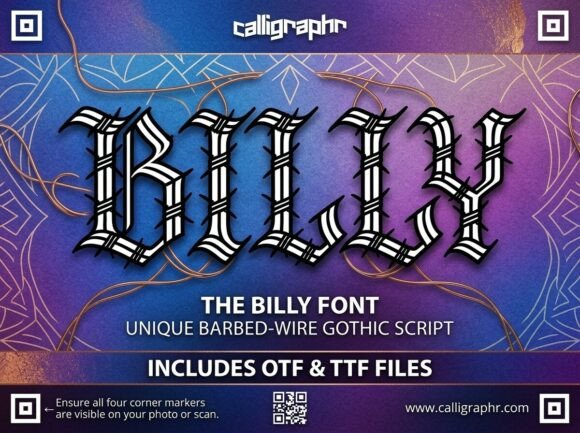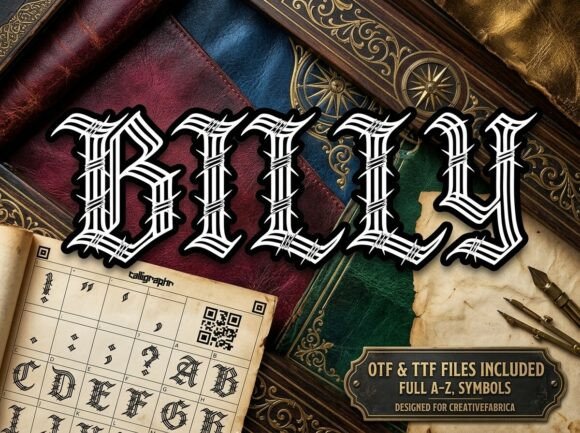
Unleash the Rebellion: Introducing Billy Font, the Ultimate Display Typeface
In the world of typography, few fonts can evoke the same level of intensity and energy as Billy, a premium display font that seamlessly fuses traditional blackletter structure with industrial aggression. This unique typeface is designed to make a statement, perfect for designers and crafters looking to add an edgy touch to their projects. In this article, we’ll dive into the world of Billy Font, exploring its features, applications, and the inspiration behind its creation.
The Birth of Billy Font
Billy Font is the brainchild of a team of designers who sought to create a typeface that embodies the spirit of rebellion and nonconformity. By combining the traditional blackletter structure with industrial elements, they crafted a font that exudes a sense of raw energy and aggression. The result is a premium display font that is both visually striking and unapologetically bold.
Key Features of Billy Font
So, what sets Billy Font apart from other typefaces? Here are some of its key features:
- Rhythmic, triple-lined letterforms: Each character in Billy Font features a unique, rhythmic design with triple-lined letterforms that create a sense of movement and flow.
- “Vicious-wire” soul: The font’s letterforms are bound by a “vicious-wire” soul, giving it a sharp, industrial edge.
- Sharp, dangerous barbs: Every character is accented by sharp, dangerous barbs that add to the font’s aggressive aesthetic.
- High-impact weight: Billy Font comes in a high-impact weight, making it perfect for bold, eye-catching designs.
Applications of Billy Font
Billy Font is a versatile typeface that can be used in a variety of applications, including:
- Independent streetwear branding: The font’s edgy, rebellious vibe makes it perfect for streetwear brands looking to make a statement.
- Heavy metal album covers: Billy Font’s aggressive aesthetic is well-suited for heavy metal album covers, adding a touch of intensity and energy to the design.
- Custom motorcycle graphics: The font’s industrial edge makes it a great fit for custom motorcycle graphics, adding a touch of rebellion to any design.
- Underground-edge social media headers: Billy Font is perfect for social media headers that require a bold, attention-grabbing design.
Why Choose Billy Font?
With so many fonts available, why choose Billy Font? Here are just a few reasons:
- Unique aesthetic: Billy Font’s fusion of traditional blackletter structure with industrial aggression creates a unique aesthetic that’s hard to find elsewhere.
- High-quality design: The font is designed with precision and attention to detail, ensuring a high-quality finish.
- Versatility: Billy Font can be used in a variety of applications, making it a great addition to any designer’s toolkit.
Billy Font is a premium display font that’s sure to make a statement. With its unique fusion of traditional blackletter structure and industrial aggression, it’s perfect for designers and crafters looking to add an edgy touch to their projects. Whether you’re working on independent streetwear branding, heavy metal album covers, custom motorcycle graphics, or underground-edge social media headers, Billy Font is the premier choice. So why wait? Unleash the rebellion and try Billy Font today!